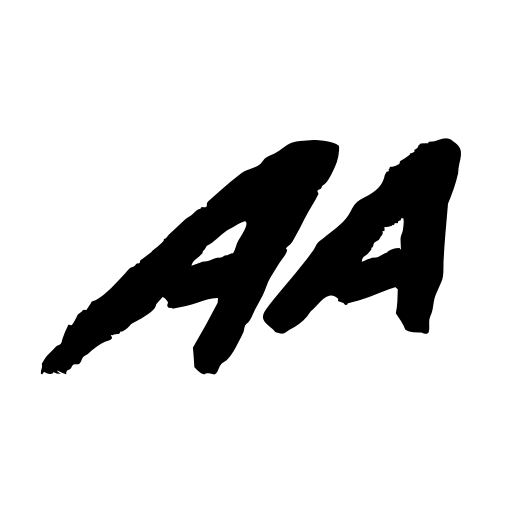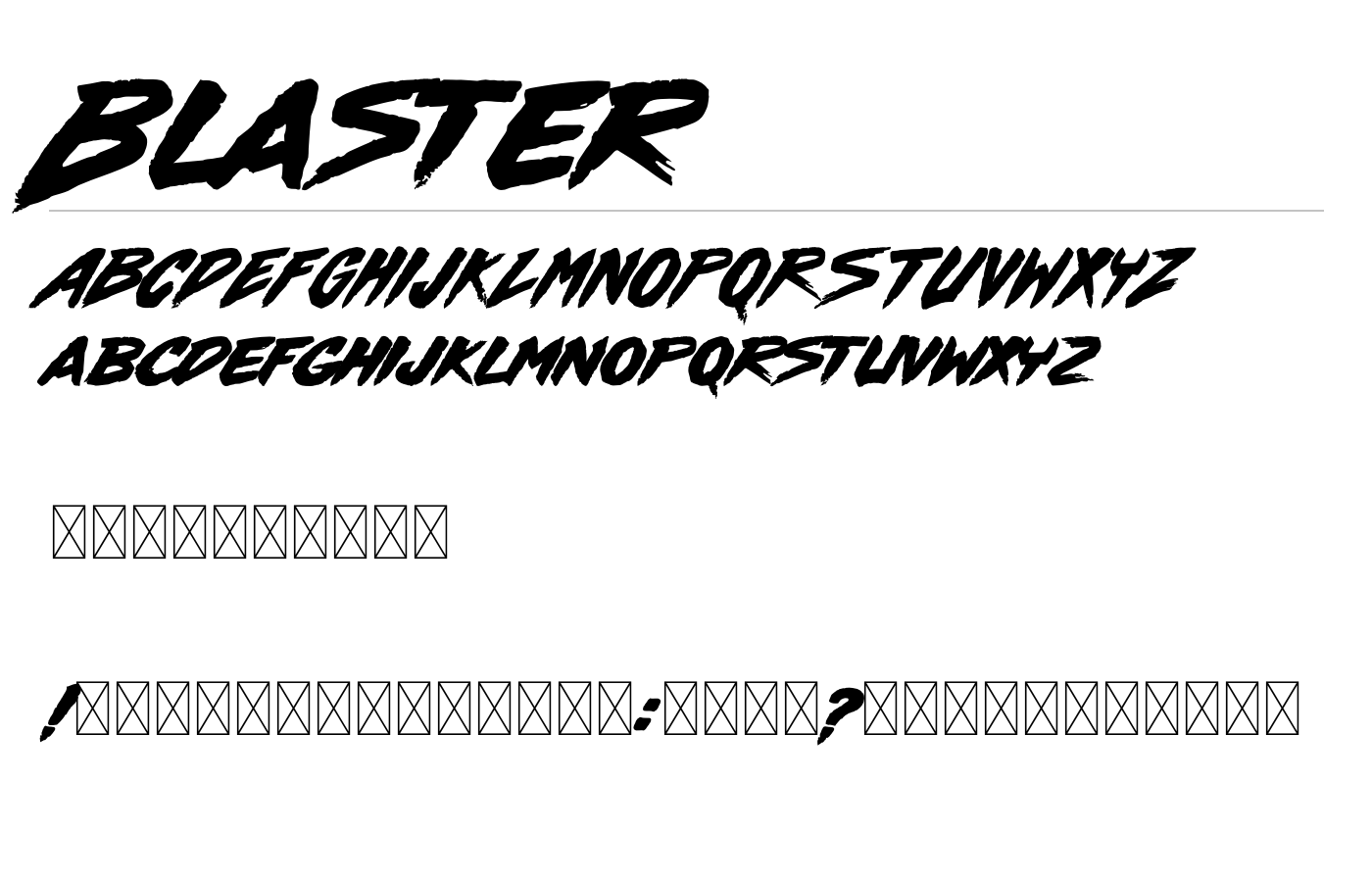
Blaster is a bold, dynamic brush script font with a strong, energetic presence. Its rough, textured strokes and sharp edges give it a raw, hand-painted feel, making it perfect for designs that aim to convey power, excitement, and a rebellious spirit. Ideal for logos, posters, and headlines, this font commands attention and works well in contexts that need a bold, impactful style.
Blaster Font
About Blaster Font
| Font family | Blaster Font |
| Designer | Indieground Design |